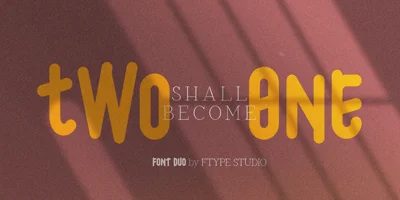
DuaSatu Font
DuaSatu Font is ideal for Southeast Asian branding, cultural organizations, international communications, multicultural projects, bilingual designs, heritage publications, and cross-cultural visual communications. This distinctive typeface brings cultural harmony and global connectivity to diverse design applications.
DuaSatu Font is exciting because it embodies the unity of diverse cultures with its harmonious letterforms that convey international cooperation and cultural bridge-building while maintaining exceptional readability and multicultural appeal across global applications.
The DuaSatu Font family includes multiple weights and cultural styling variations that reflect the diversity and unity of international design. This harmonious collection provides designers with culturally sensitive options for creating memorable and globally inclusive brand experiences.
DuaSatu Font offers designers access to a culturally crafted typeface that captures the essence of international unity and multicultural harmony. This distinctive font features thoughtfully designed letterforms with cultural sensitivity that create immediate associations with global cooperation, cultural diversity, and international understanding. The typeface showcases balanced proportions and multicultural aesthetics that enhance international communications while maintaining professional functionality and broad accessibility. Its global character makes it particularly suitable for international organizations and multicultural brands that require typography capable of conveying cultural harmony, global unity, and international cooperation. DuaSatu Font delivers exceptional multicultural impact for applications where monocultural fonts feel limiting for international communications and global brand positioning. The font's inclusive appeal and multicultural aesthetic make it an essential tool for designers working on projects that require typographic expression of cultural diversity, international unity, and global harmony that resonates with audiences seeking authentic multicultural experiences and inclusive visual communication.